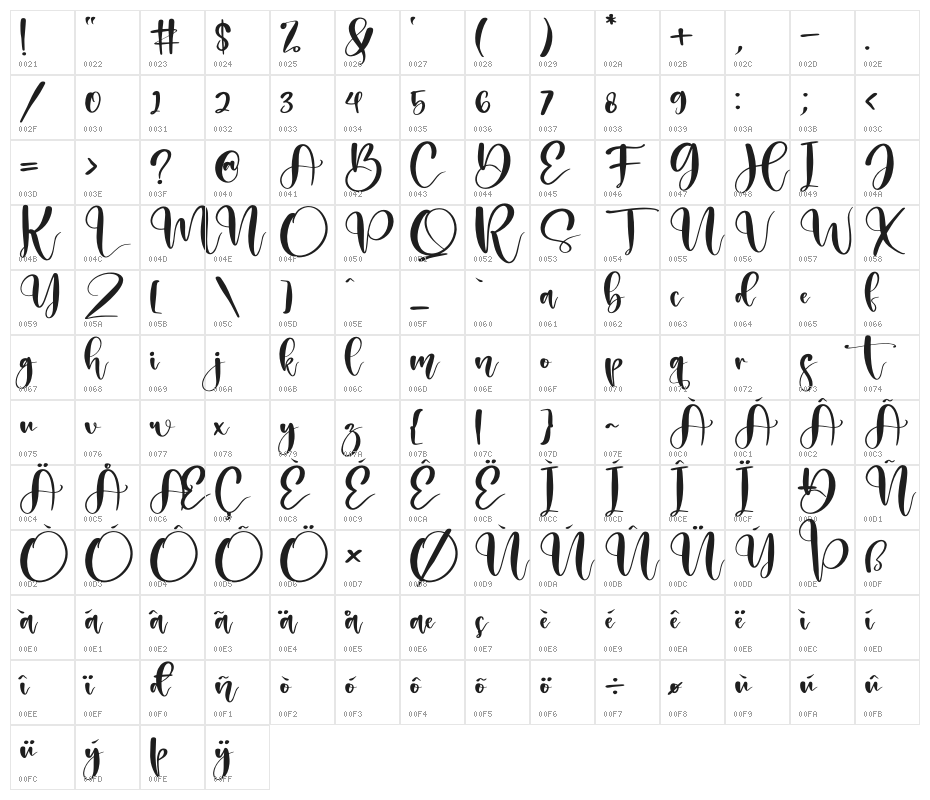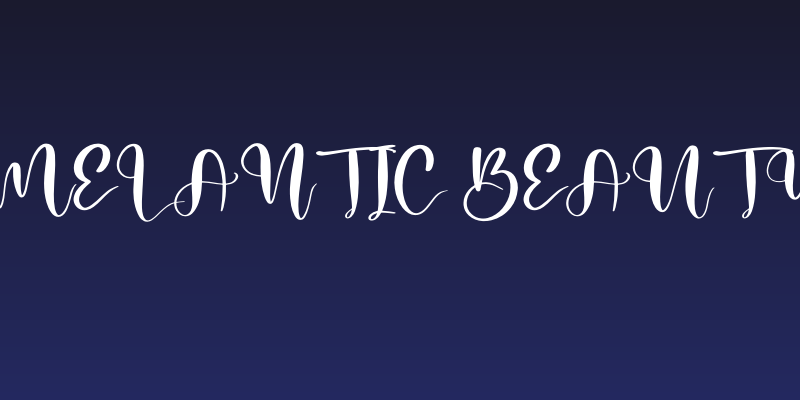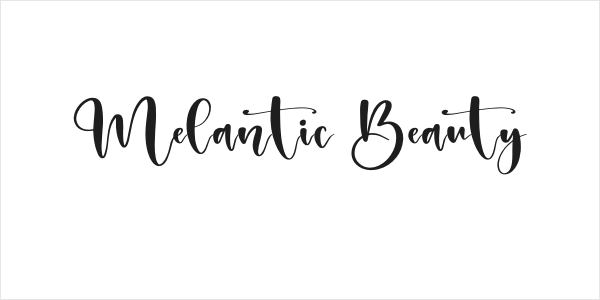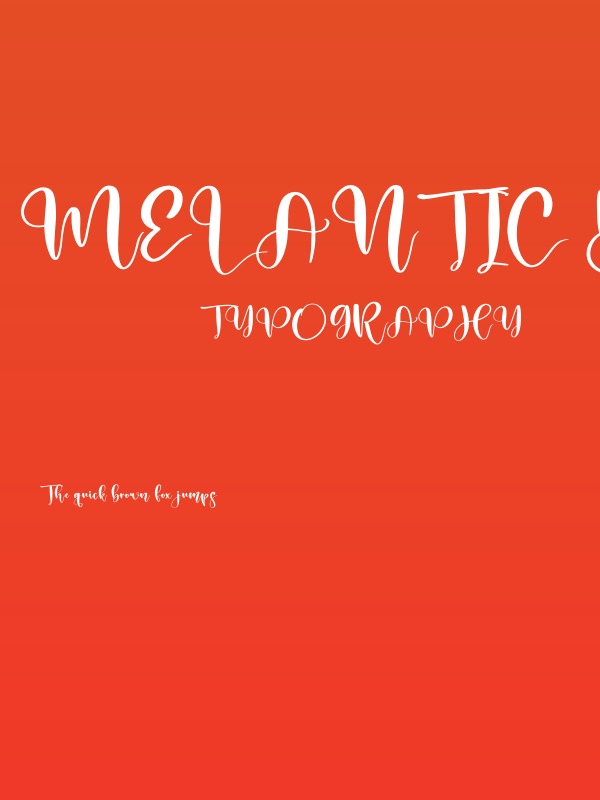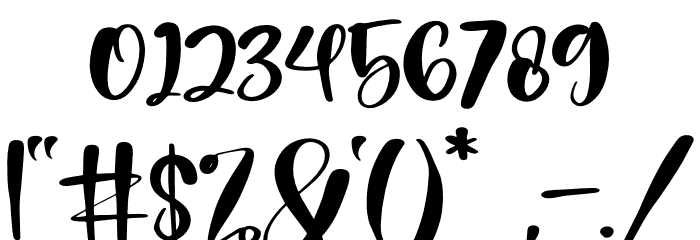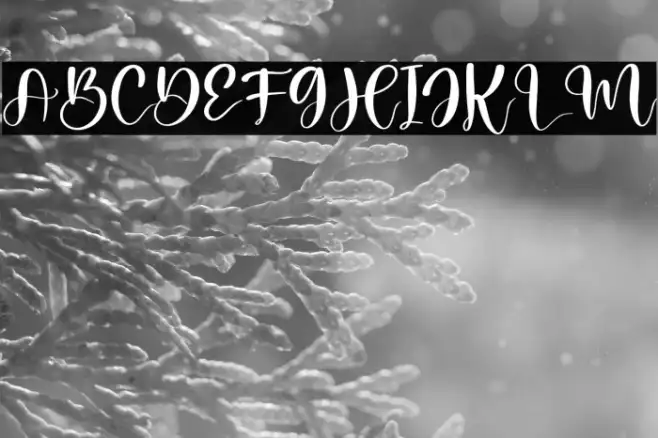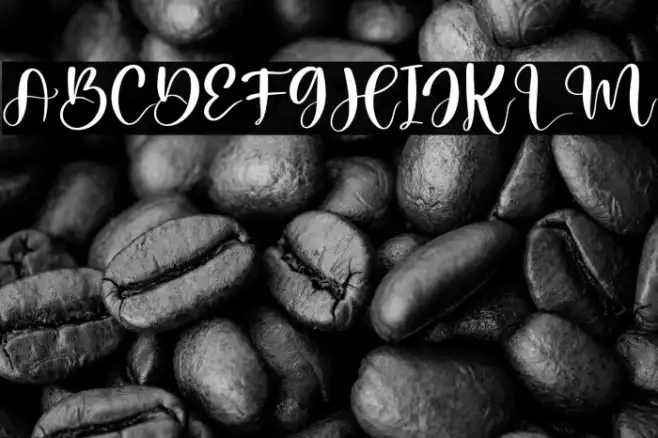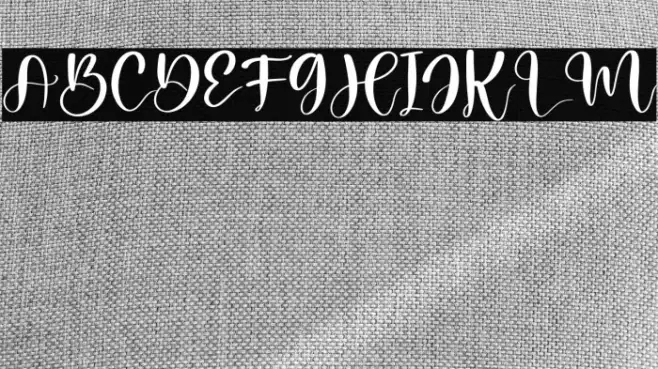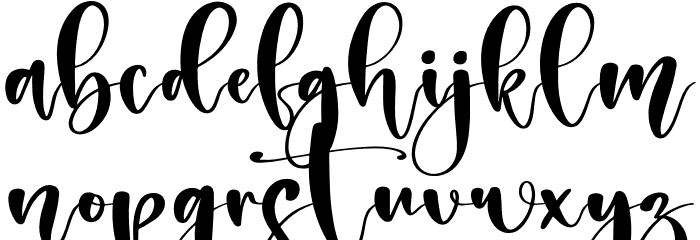
Melantic Beauty Font
Melantic Beauty Description
This font exhibits a flowing, cursive style with elegant, sweeping strokes that convey a sense of sophistication and charm. The uppercase letters are bold and expressive, featuring intricate loops and flourishes that add a decorative touch. The lowercase letters maintain a consistent style, with smooth curves and a slightly playful demeanor. Numbers and special characters are designed to match the overall aesthetic, ensuring a cohesive look across all text. The font's artistic flair makes it ideal for creative projects that require a personal, handwritten feel.
| Proposed Projects | Ideal for wedding invitations, greeting cards, branding, and logo design where a personal touch is desired. |